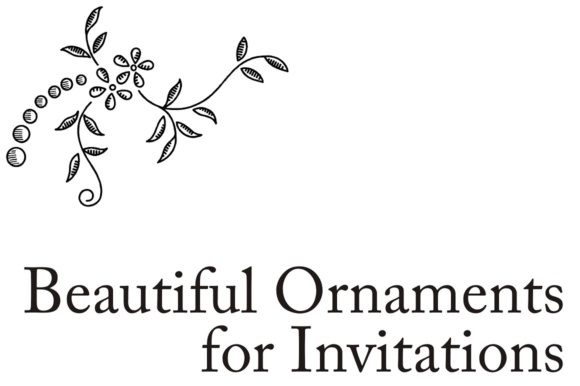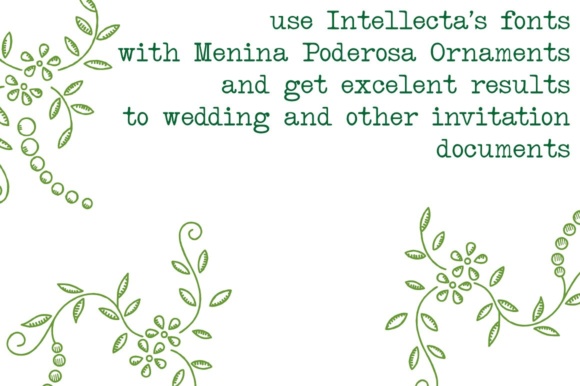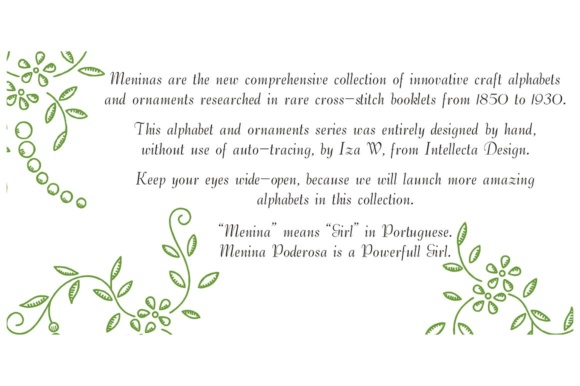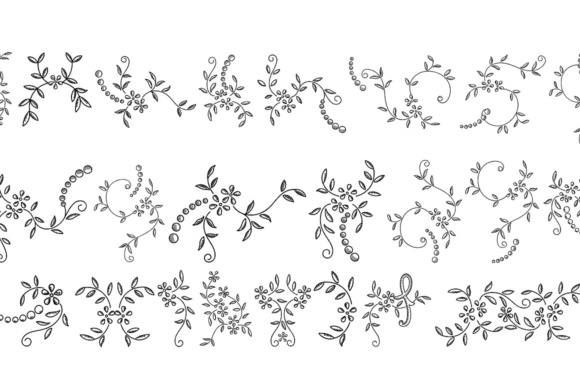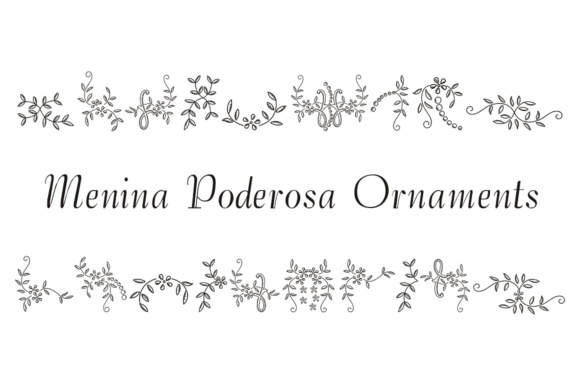
Menina Poderosa Ornaments Font
About Menina Poderosa Ornaments Font
Introducing Menina Poderosa Ornaments, a stunning collection of twigs and other floral elements meticulously researched from cross-stitch booklets dating back to the period of 1850-1930. This comprehensive set of ornaments has been crafted by hand, capturing the delicate beauty and intricate details found in vintage cross-stitch designs.
Menina Poderosa Ornaments offers a wide range of flora-inspired elements that can bring a touch of natural elegance to your creative works. Each ornament has been carefully curated and recreated, paying homage to the craftsmanship and artistry of the cross-stitch tradition.
Whether you’re working on invitations, stationery, art prints, or any other design project, Menina Poderosa Ornaments provides a wealth of options to enhance your compositions. From delicate twigs and branches to blossoming flowers and foliage, these meticulously crafted elements add a touch of timeless beauty and grace.
The authenticity and historical research behind Menina Poderosa Ornaments make it a truly unique and valuable resource for designers seeking to infuse their work with a vintage charm. The cross-stitch booklets from which these ornaments were sourced serve as a window into the past, offering a glimpse into the art forms and creative expressions of a bygone era.
By incorporating Menina Poderosa Ornaments into your designs, you can evoke a sense of nostalgia and pay homage to the rich history of cross-stitch and embroidery. Each ornament carries the warmth and intricacy of handcrafted needlework, bringing a sense of handmade artistry to your digital projects.
The versatility of Menina Poderosa Ornaments allows them to be seamlessly integrated into a wide range of design styles and themes. Whether you’re aiming for a vintage aesthetic, a romantic flourish, or a whimsical touch, these floral elements offer endless possibilities for customization and creative expression.
Experience the captivating allure of Menina Poderosa Ornaments as you explore the exquisite collection of twigs and floral elements. Let the delicate beauty and timeless appeal of these handcrafted ornaments inspire your creativity and elevate your designs to new heights.
Unlock the enchanting world of vintage cross-stitch and embrace the allure of Menina Poderosa Ornaments. Infuse your works with the captivating charm of meticulously researched floral elements, and watch as your designs come to life with a touch of timeless beauty and handcrafted elegance.